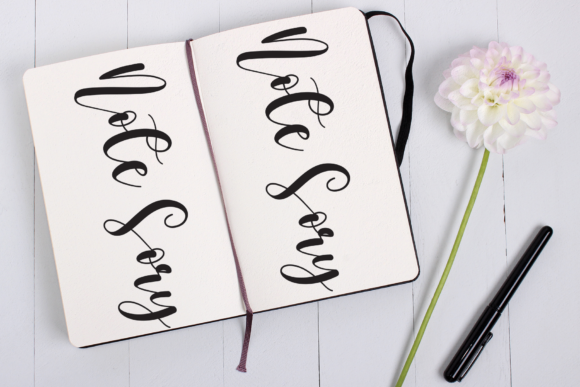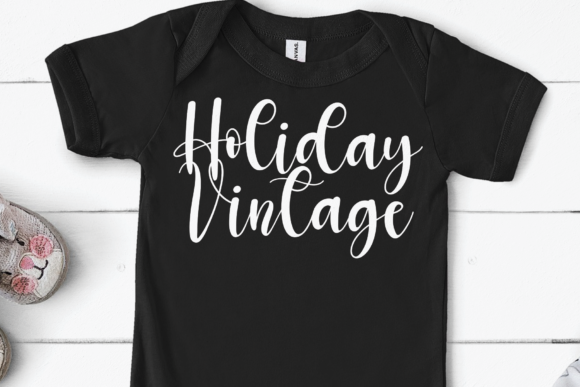
Boho Font
db-ku.com - Script & Handwritten -- Boho is a beautiful and sweet calligraphy typeface with characters that dance along the baseline. It will add a luxury spark to any design project that you wish to create!